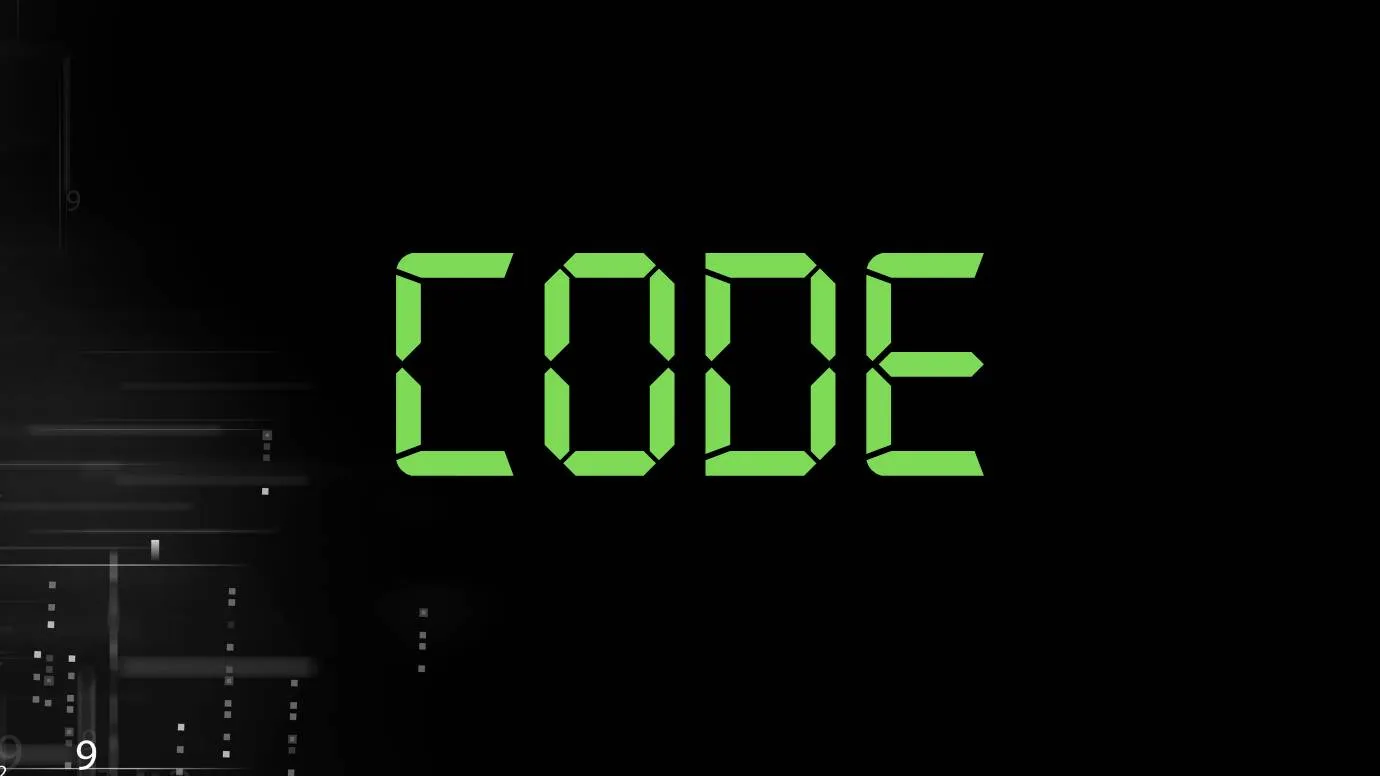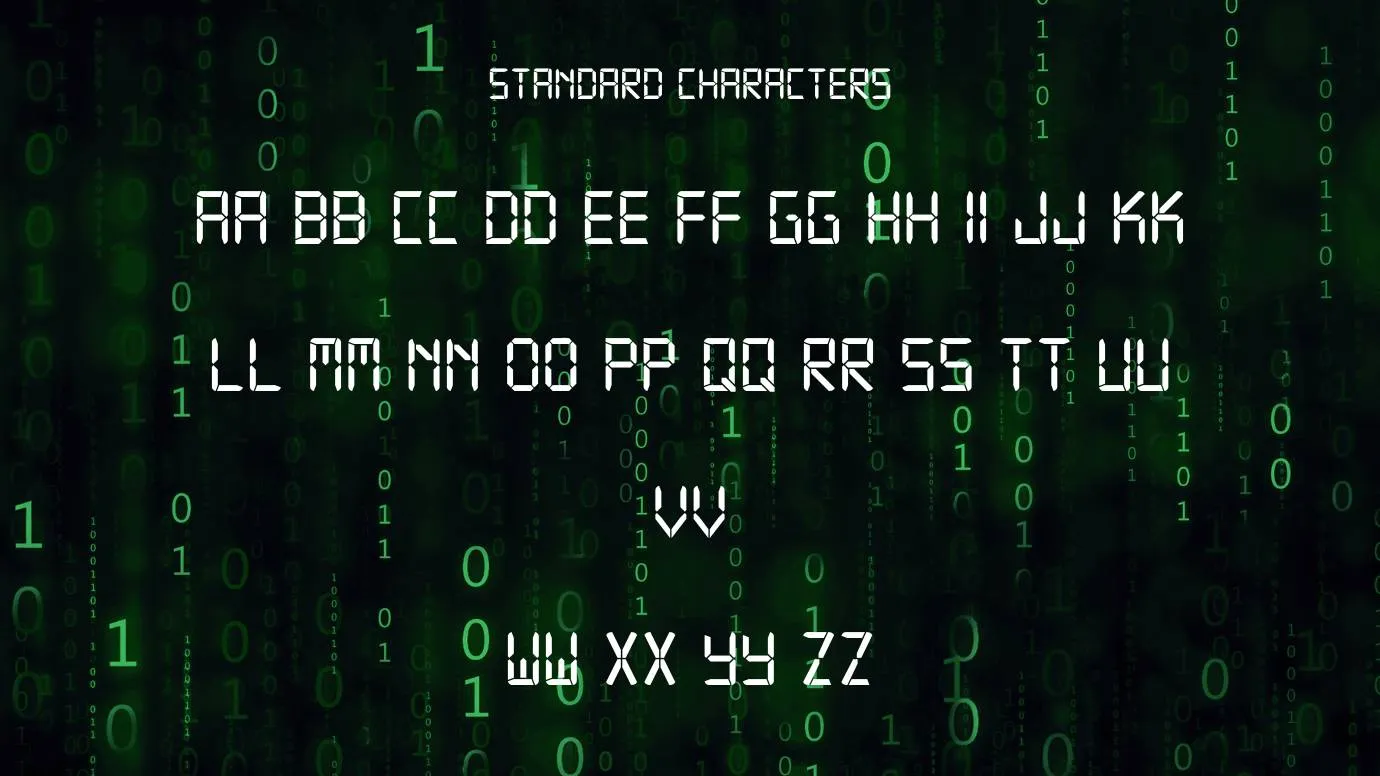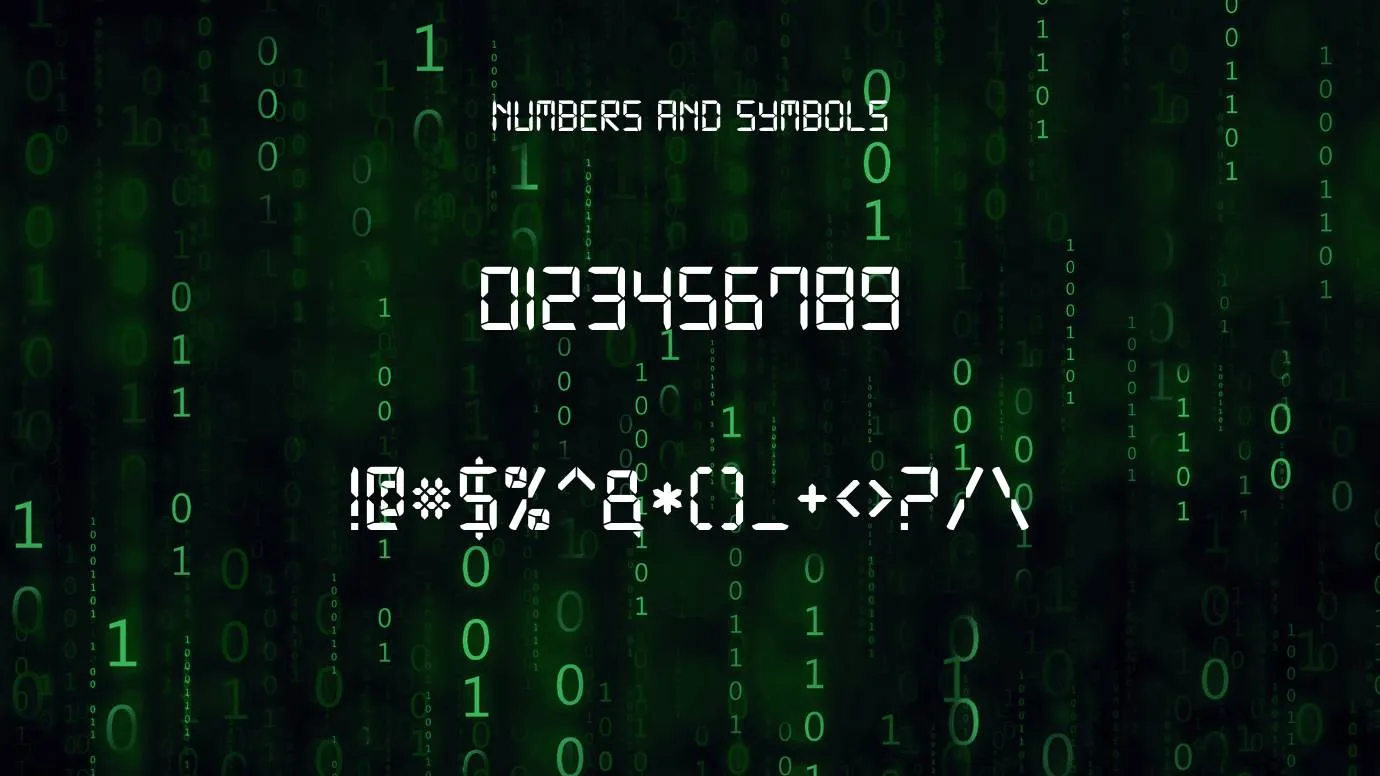
Digital Font is an attractive fancy design. There are capital and lowercase letters, digits, and punctuations in the font. It comes in two formats, TTF and OTF. Greek, Cyrillic, and Latin character sets are all supported by the typeface. This lovely typeface is widely used in the design industry and it is ideal to create brand image designs.
Its free-generating tool can be used for any kind of private work. Numerous designers pair it with another typeface and get amazing results.
This typeface includes amazing options for creating new designs. It has well-known characteristics that make it particularly useful for various purposes. This font’s glyphs have a frequency of 1024 pixels per unit.
How to Use Digital Font effectively?
The typeface is ideal for creating headers, logos, and brief paragraphs, this is one of the best-looking fonts available right now. This unique style is rich in design because it is tough and highly strong. It makes a superior choice in terms of trademarks, headers, and layout design.
With some font editing, you can also create a stunning YouTube thumbnail. The design appears unique. This typeface can satisfy all of the user’s needs. It also makes a unique pair with right signature font.
A typeface with capitals and exclamation. It is one of the most beautiful free contemporary fonts accessible because each letter is properly placed within a specified area, giving the spaces between every letter that are distinct and reliable.
What is Digital font used for?
The typeface is highly useful, that can be used in any project and purpose. It was widely used in advertising headlines and text, as well as other display purposes.
Is Digital a good font?
It is one of the most beautiful free contemporary fonts accessible because each letter is properly placed within a specified area, giving the spaces between every letter distinct and reliable.
Is Digital a professional font?
This is an elegant, stylish design that is easy to read and has balanced characters which makes it prominent among the other typefaces.